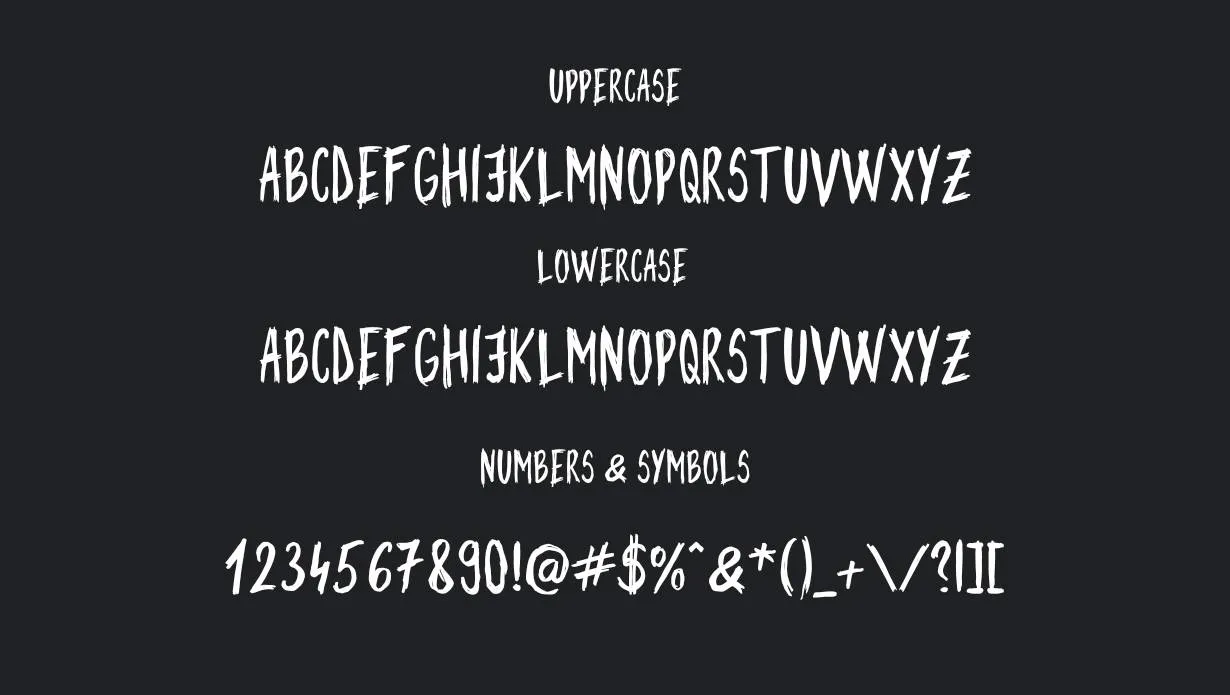
Deepo Font commands attention with its bold and impactful presence, making it perfect for headlines and designs that need to make a statement. Its robust characters and strong lines convey a sense of power.
| Name | Deepo Font |
| Designer | Gatis Vilaks |